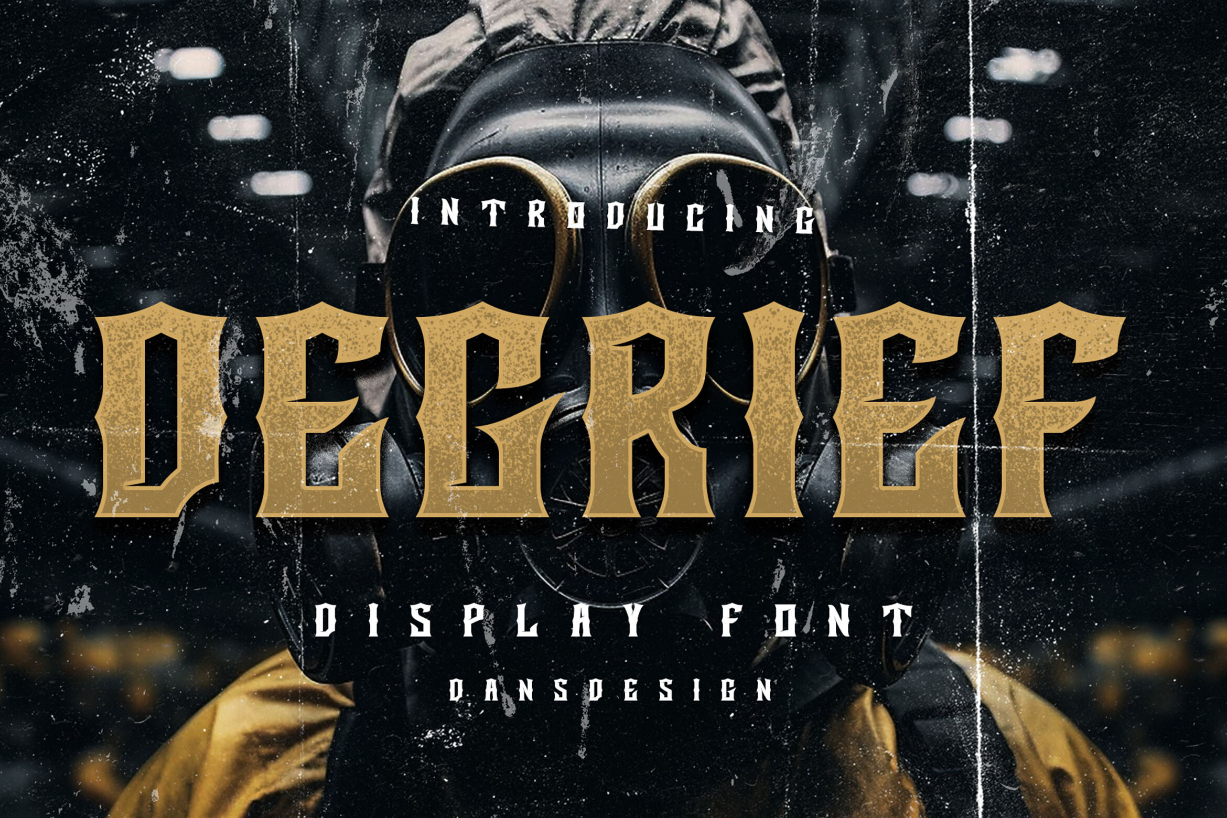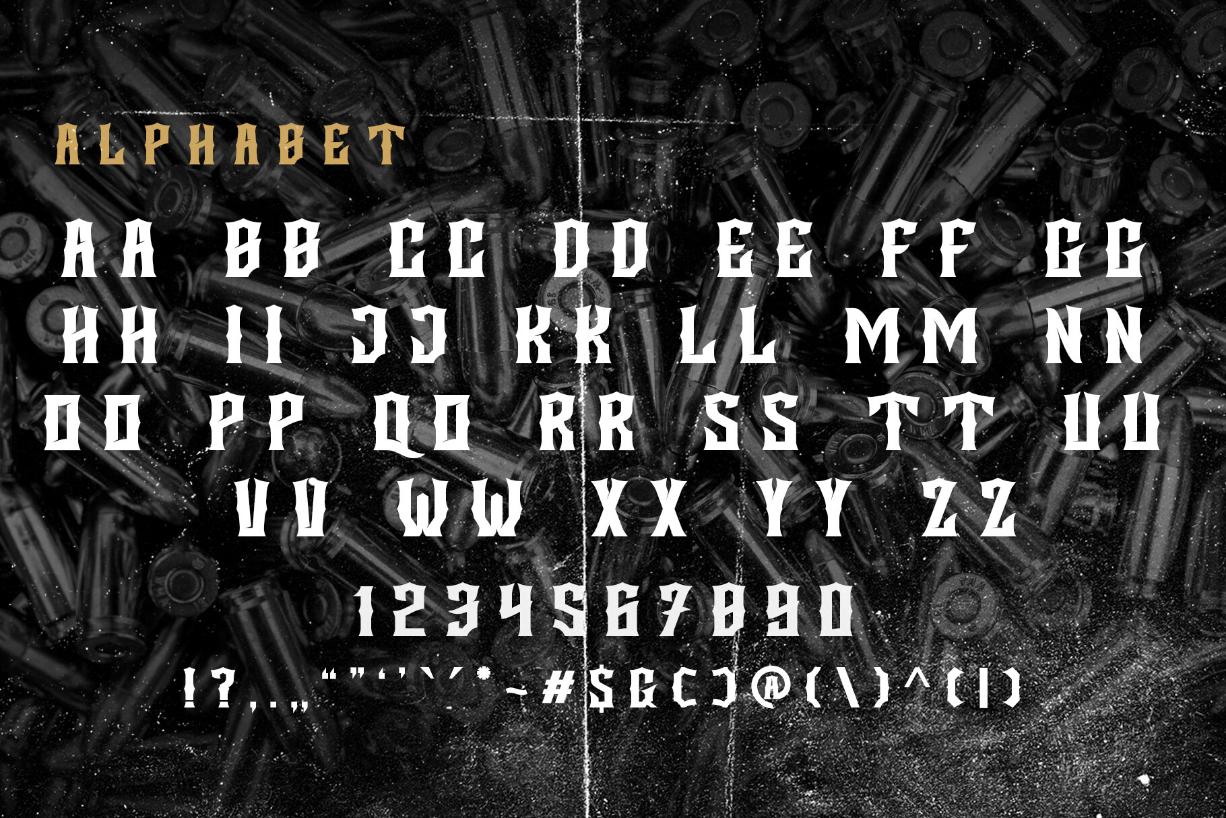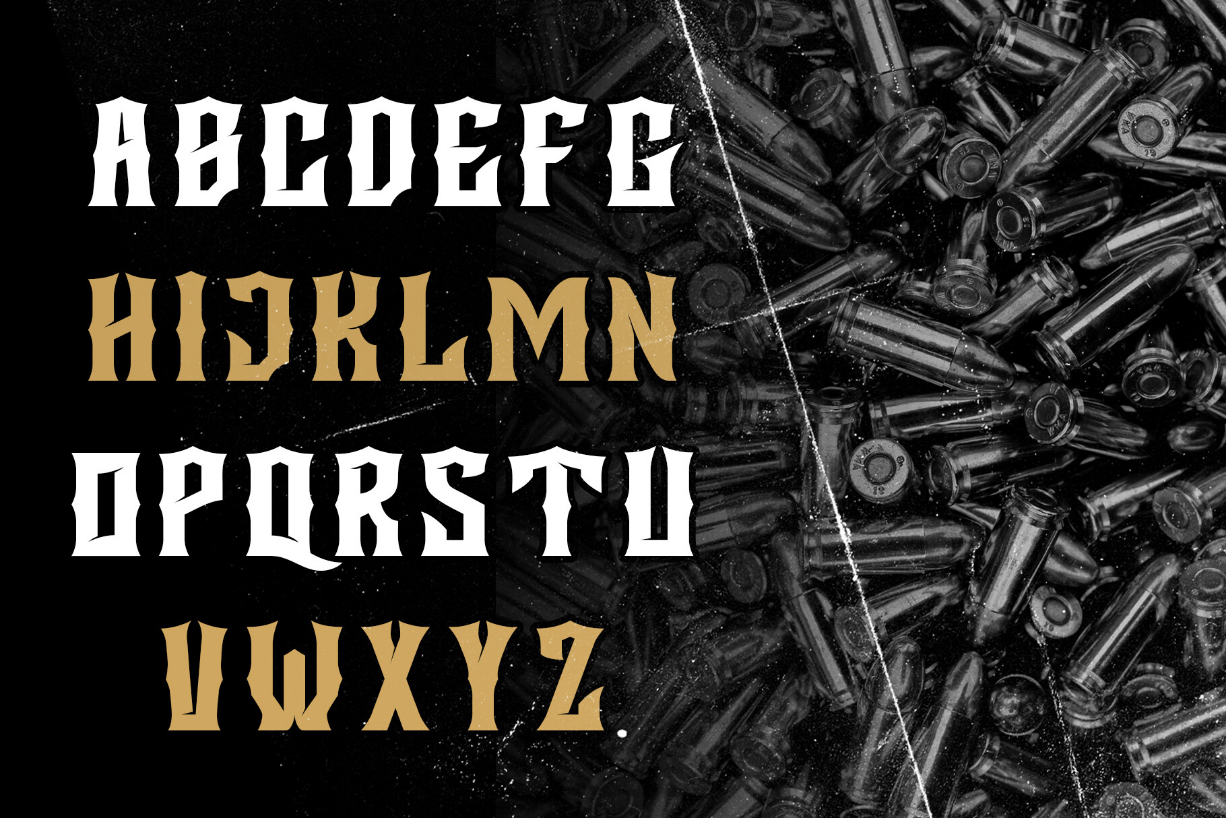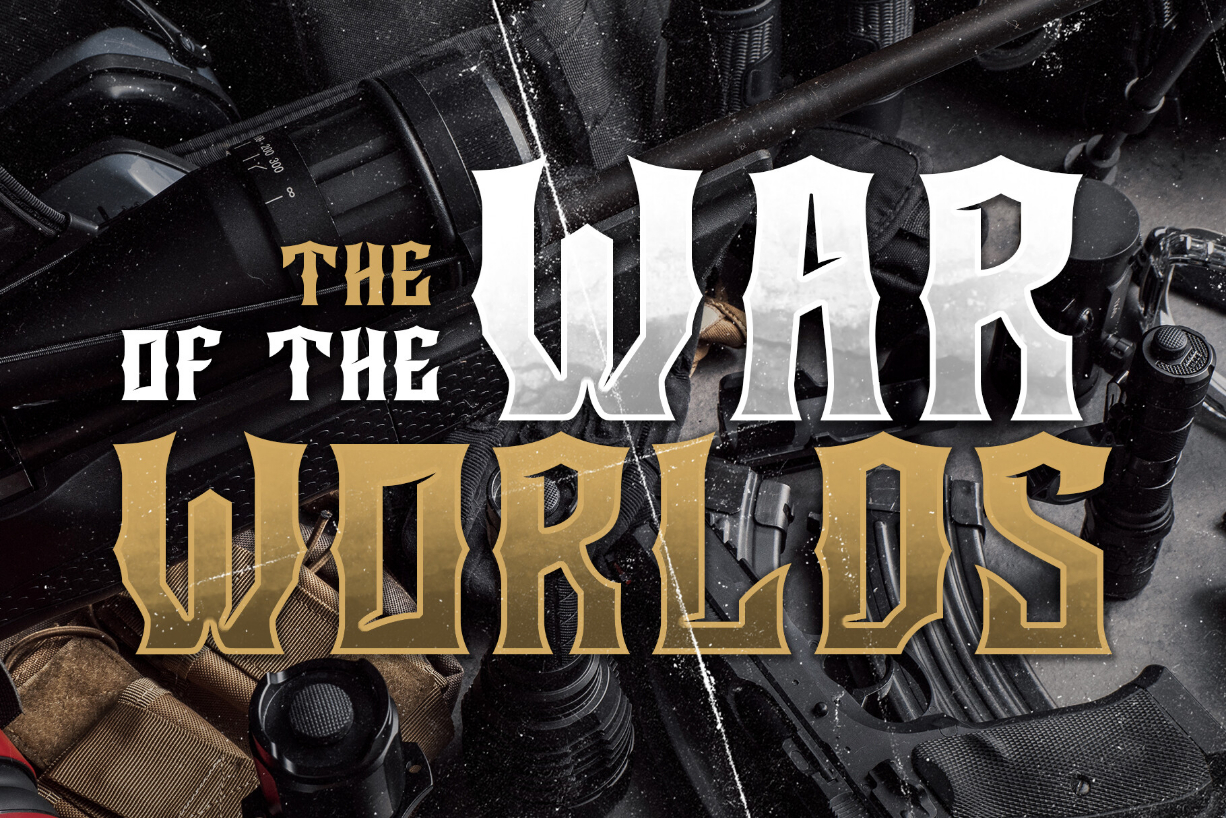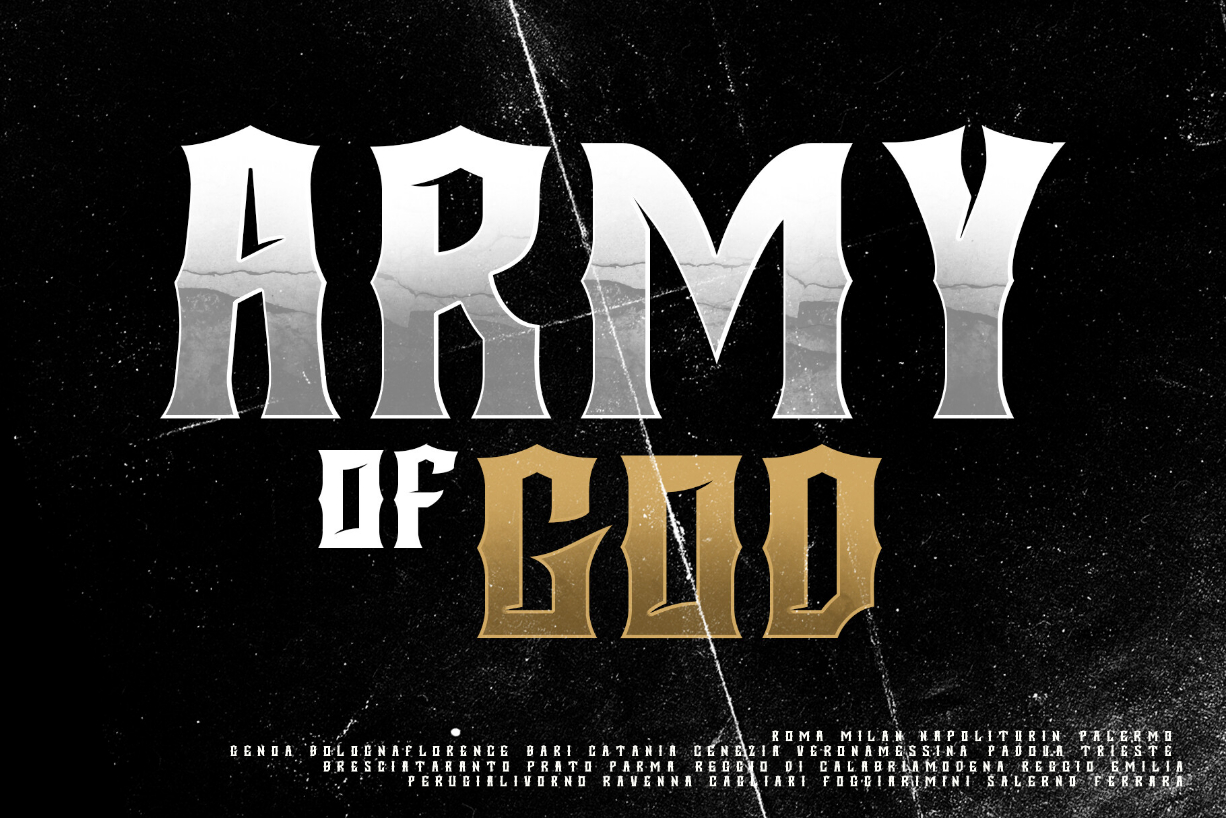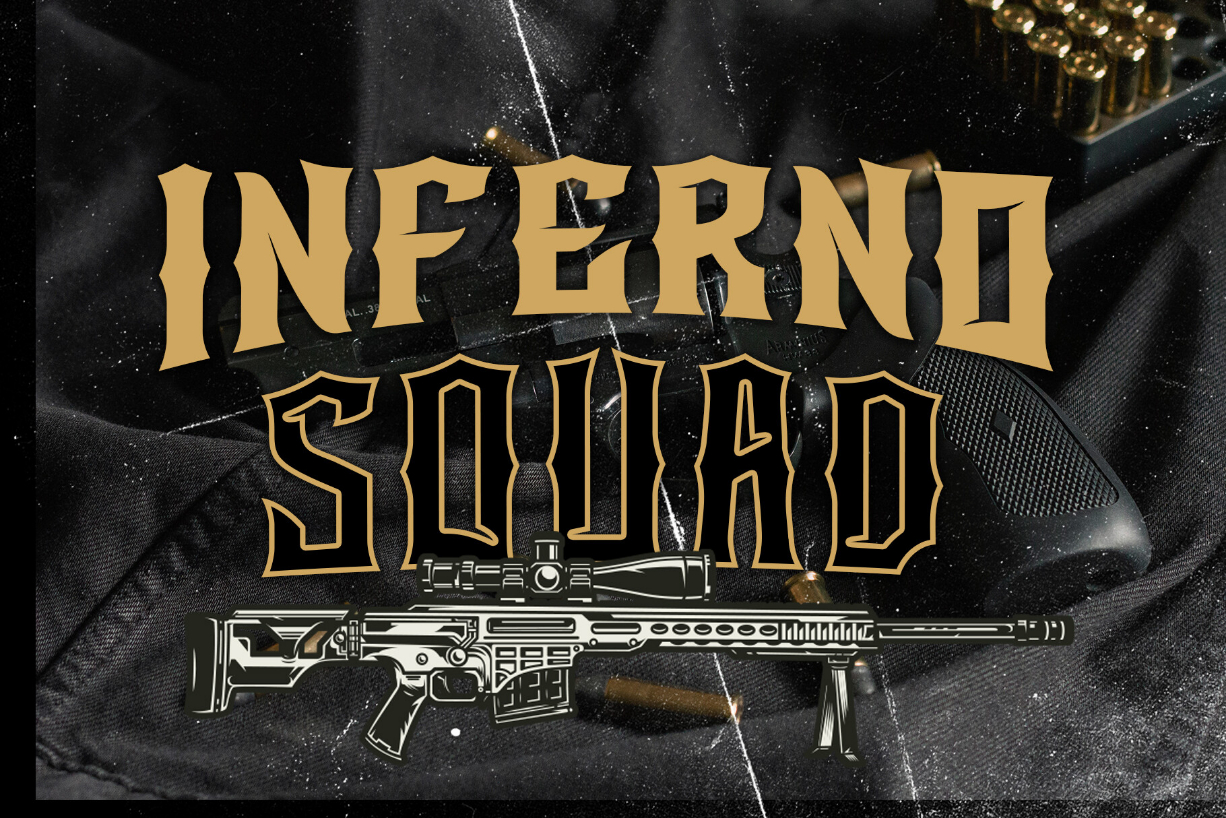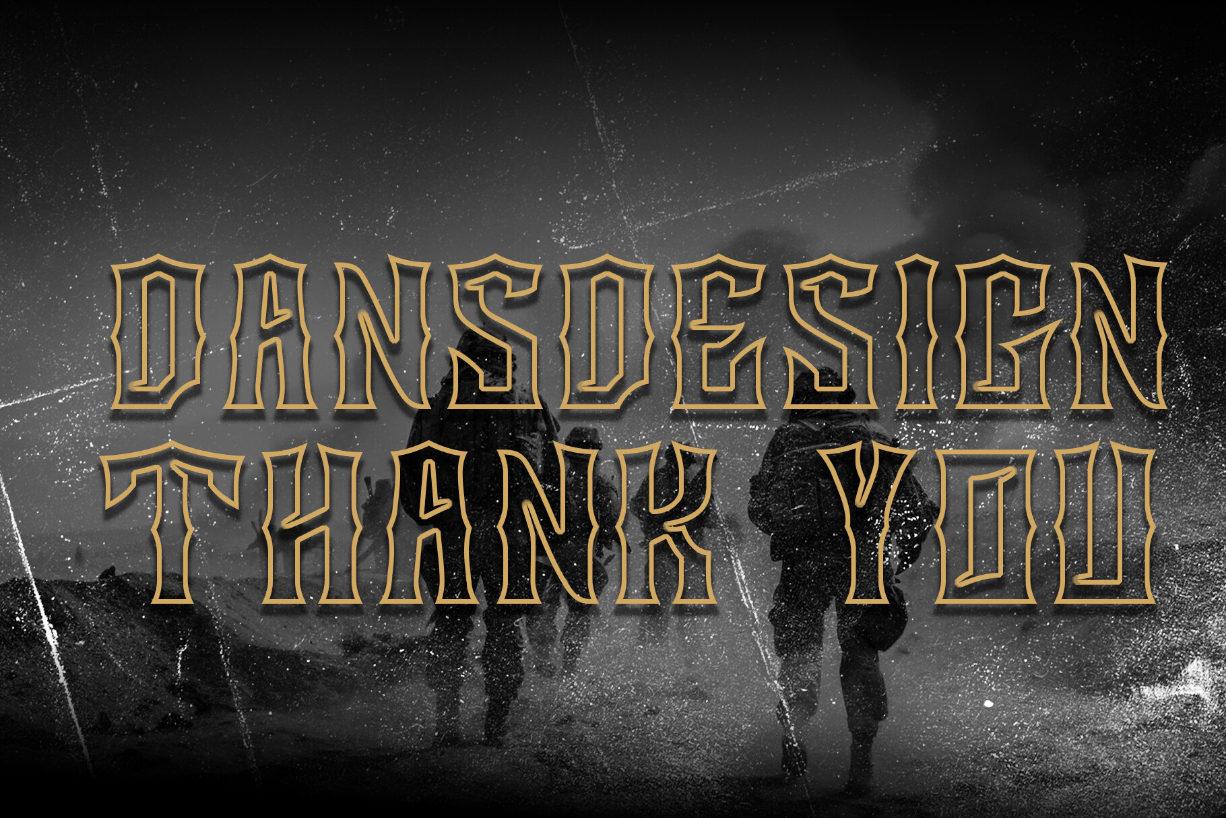
About Degrief Font
DEGRIEF Vintage Display Font is a distinct, highly detailed, and Horror Metal Font. It would make a great choice for exquisite Music, Posters, retro-urban designs, tattoo business branding, logos, vintage designs, and more.